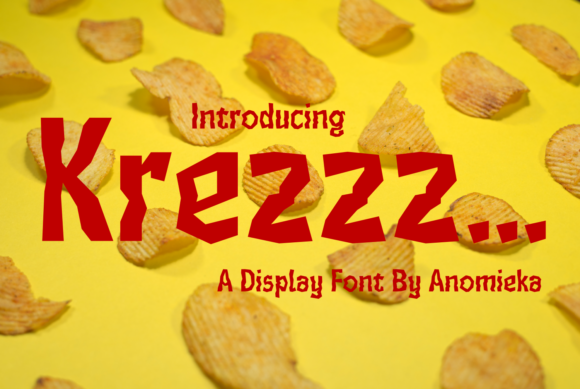
Journey into the realm of creativity and whimsy with Krezzz Font, a display font that will ignite your imagination and transform your designs into captivating masterpieces. Inspired by the boundless energy and vibrant spirit of childhood, this font family is a playful dance of characters, handpicked to bring life to your unique creations.
Unleash your inner child and explore the limitless possibilities of Krezzz Font. With its captivating design and enchanting appeal, this font is the perfect choice for kids' t-shirts, adding a touch of magic and wonder to their everyday attire. Let your little ones' personalities shine through as they wear t-shirts adorned with the playful and endearing characters of Krezzz Font.
Step into a world where imagination reigns supreme and creativity knows no bounds. Krezzz Font is not just a collection of letters; it's an invitation to embark on an extraordinary adventure, where every word carries a story and every design tells a tale. Transform your designs into captivating works of art, capturing the essence of childhood dreams and aspirations.
Embrace the magic of Krezzz Font and let your designs soar. Whether you're creating captivating marketing materials, enchanting invitations, or simply adding a touch of whimsy to your personal projects, this font will elevate your creations to new heights. Its versatility knows no limits, making it the perfect choice for a wide range of projects.
With Krezzz Font, you hold the key to unlocking a world of endless creative possibilities. Dive into the depths of your imagination and let your designs take flight. Experience the joy of creating designs that resonate with the hearts of your audience, leaving a lasting impression that will ignite their imaginations and captivate their senses.